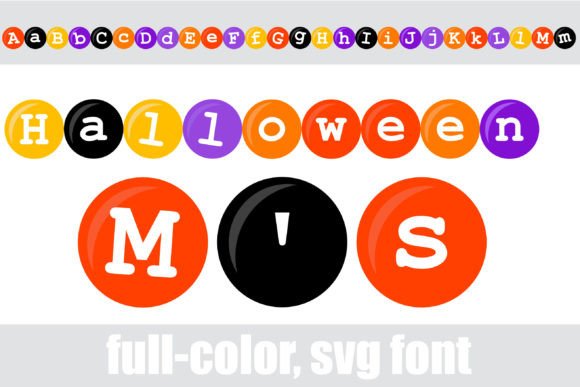
Prepare to be spooked by the enchanting Halloween M's Font, a full-color masterpiece that'll cast a spellbinding charm on your designs. Inspired by the vibrant hues of Halloween, this font is a delightful treat for any creative soul seeking a touch of whimsy and enchantment in their projects.
With its captivating candy-coated chocolate color palette and a secret stash of additional colors hidden in its alt case, Halloween M's Font is the perfect tool to conjure up eye-catching logos that will make your brand stand out like a glowing jack-o'-lantern on a moonlit night. But don't be fooled by its spooky name, this font is a versatile chameleon, equally adept at crafting enchanting invitations, spine-tingling posters, and any other design project that demands a sprinkle of Halloween magic.
Step into the world of full-color SVG fonts, where the boundaries of creativity dissolve, and let Halloween M's Font be your guide. This innovative font format opens up a realm of possibilities, allowing you to paint your designs with a symphony of colors that will leave your audience spellbound. From vibrant logos that seem to leap off the page to otherworldly illustrations that transport viewers to a realm of imagination, the possibilities are endless.